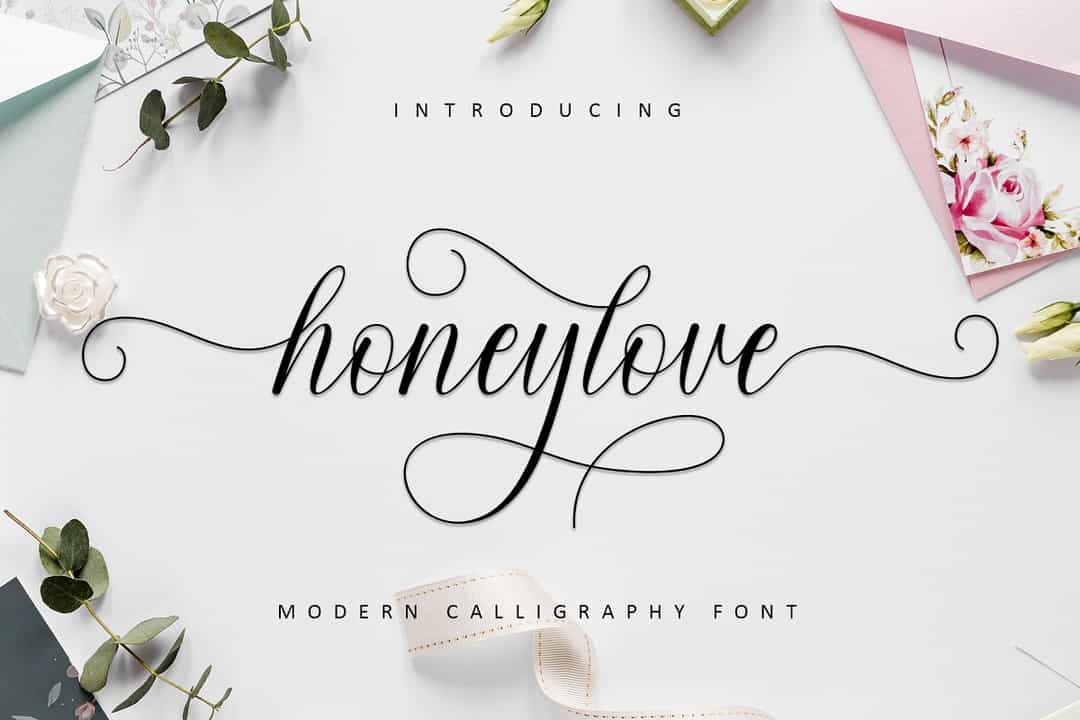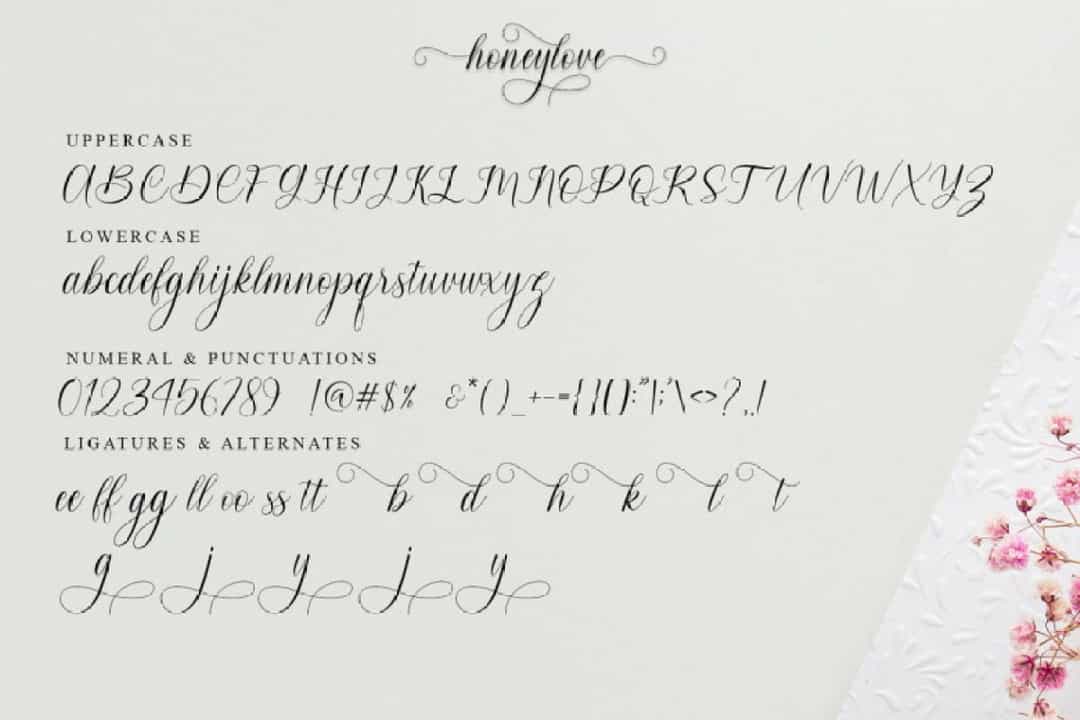
Honeylove is a very eye-catching and a contemporary font with many beautiful ligatures: initial and final swashes, which makes this font suitable for wedding projects, logos, branding, social media advertising or product presentation.